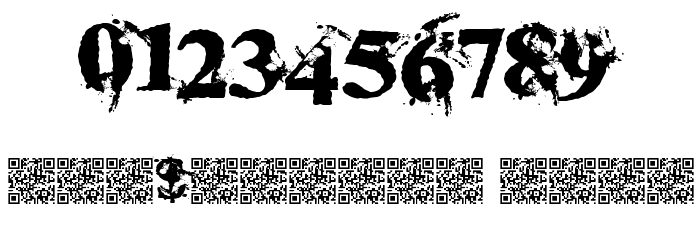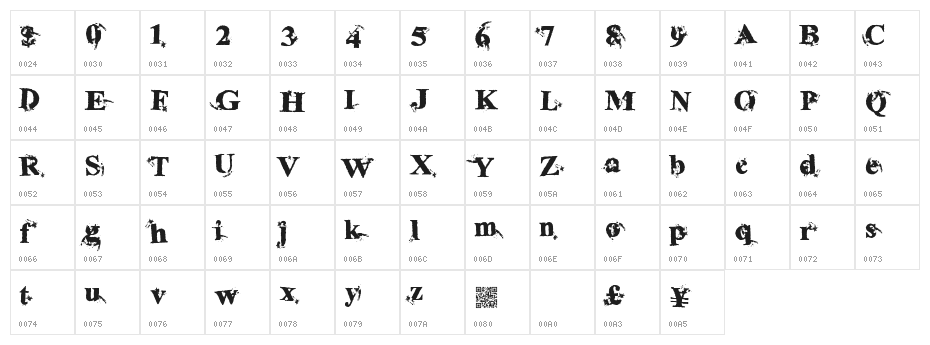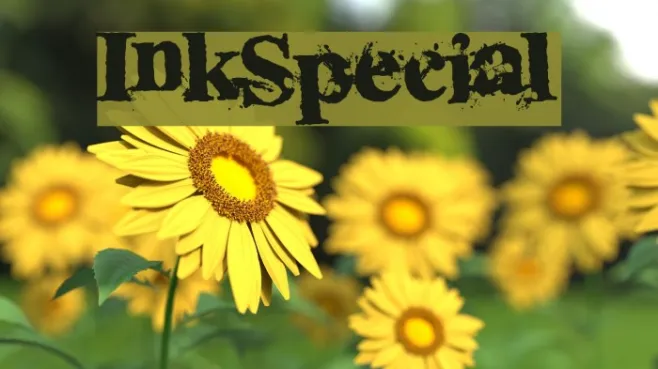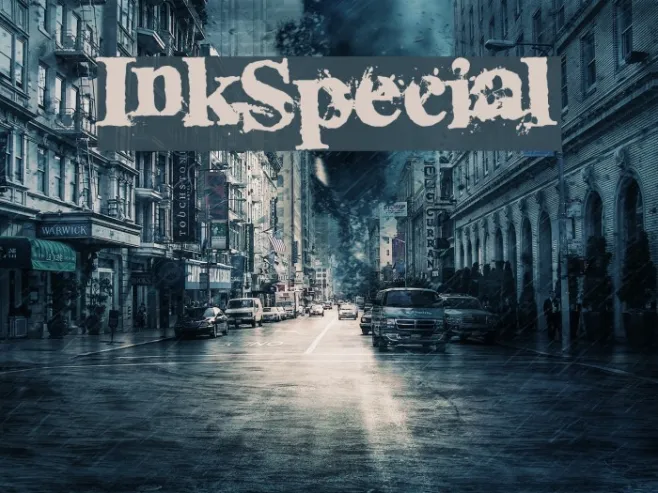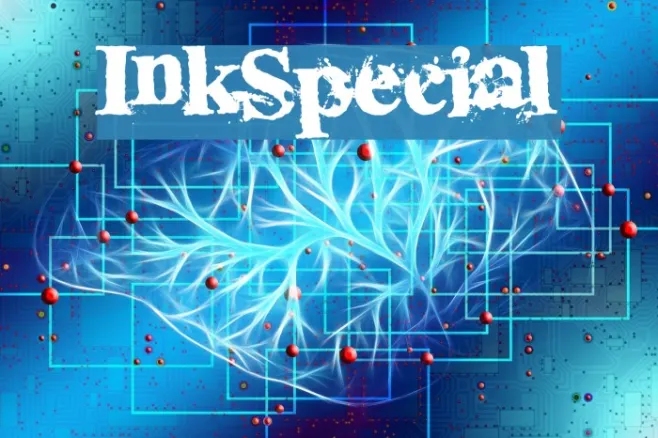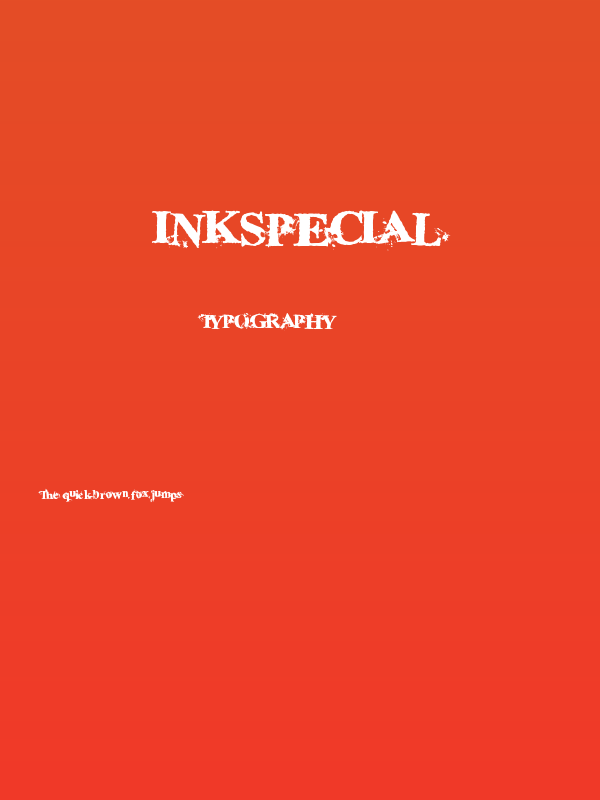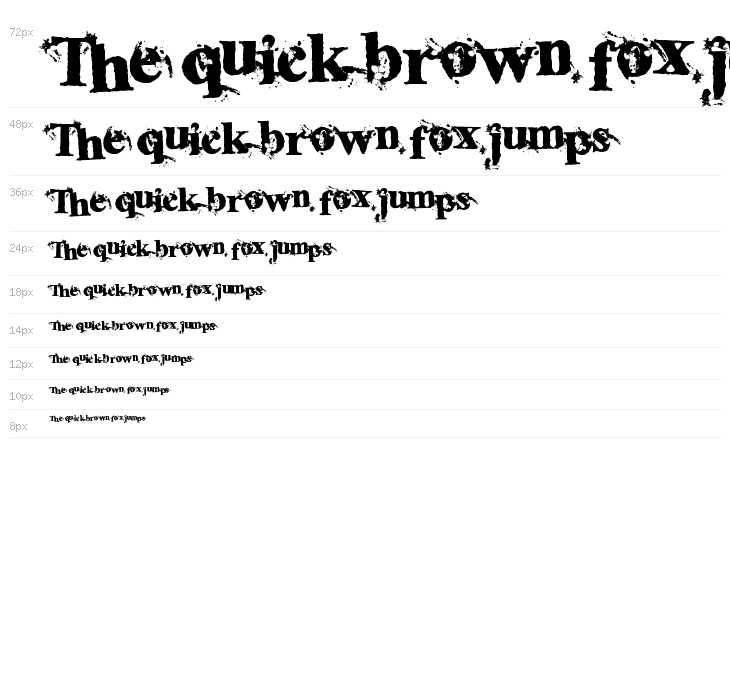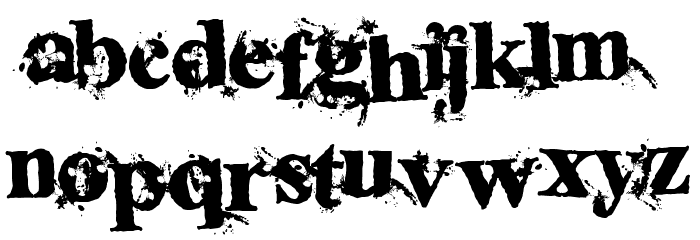
InkSpecial Font
InkSpecial Description
This font features a bold and distressed style, characterized by splatters and irregular edges that give it a grunge and worn appearance. The uppercase and lowercase letters maintain a consistent height, while the numbers and special characters follow the same distressed aesthetic. The overall design is reminiscent of ink splatters, adding a dynamic and edgy feel to the text. This font is ideal for projects that require a raw and artistic touch, making it suitable for creative and unconventional designs.
| Overall Style | Grunge, Artistic, Edgy |
| Proposed Projects | Album covers, posters, streetwear branding, artistic projects, and any design needing a grunge or edgy look. |